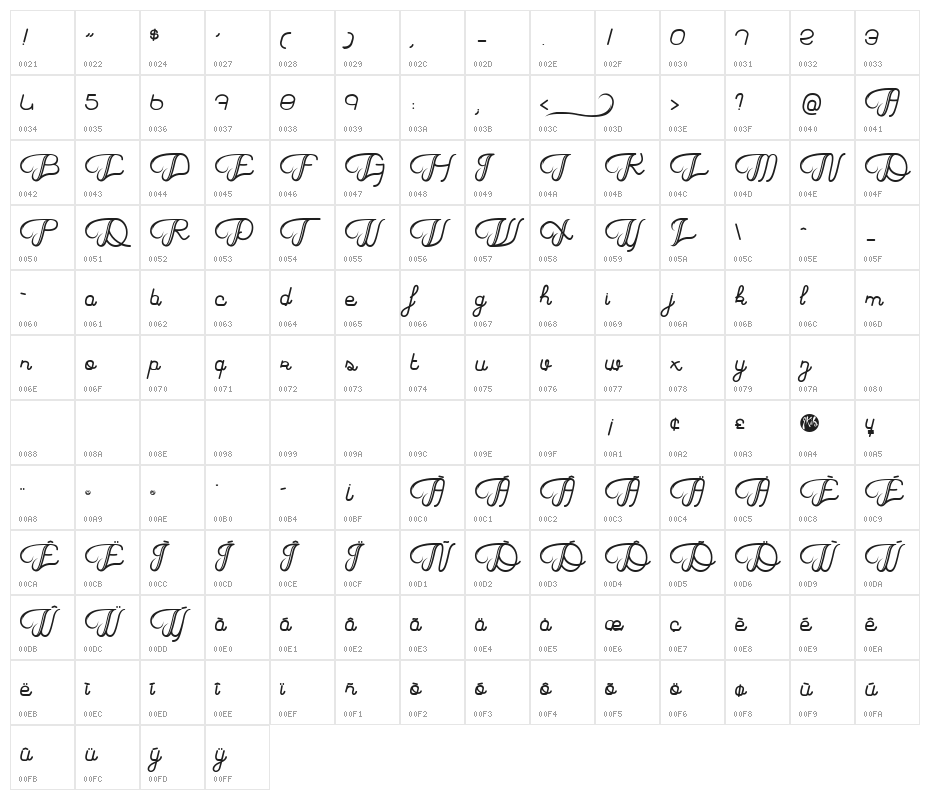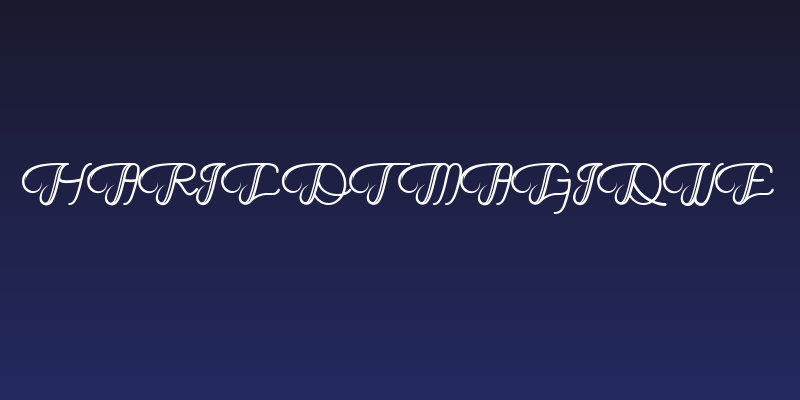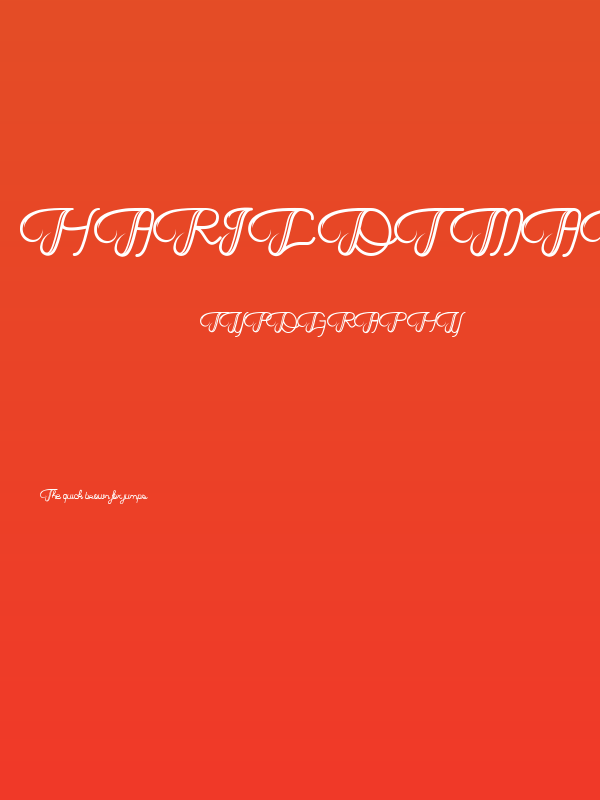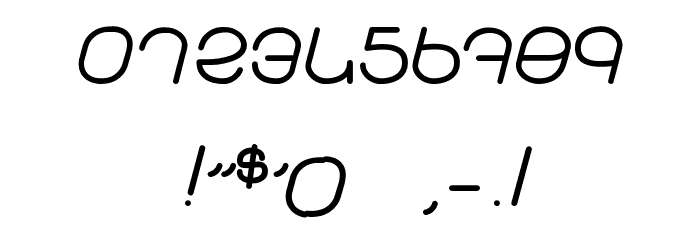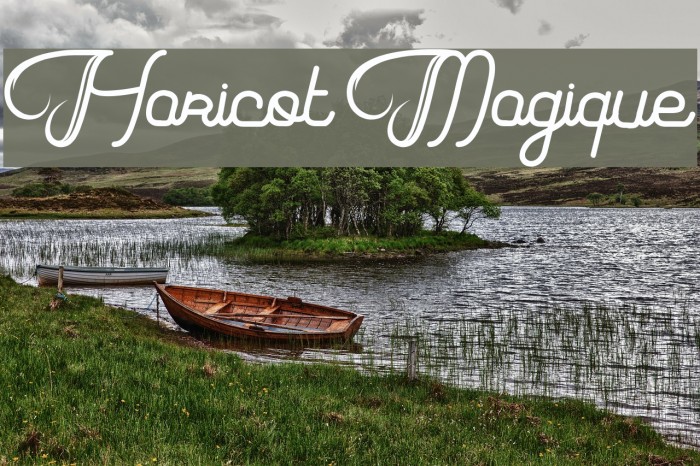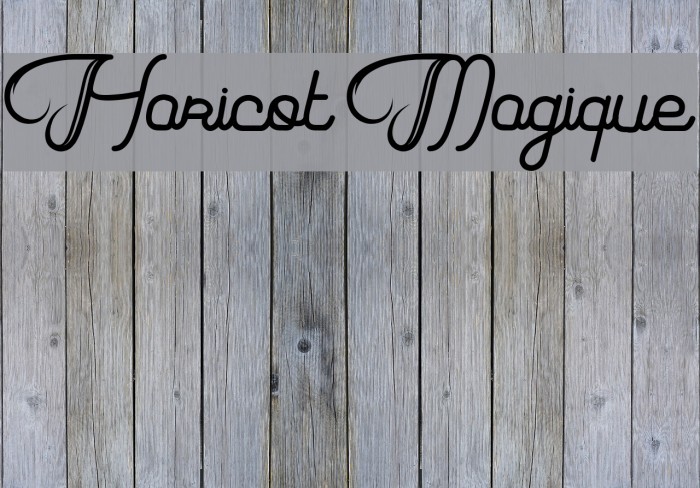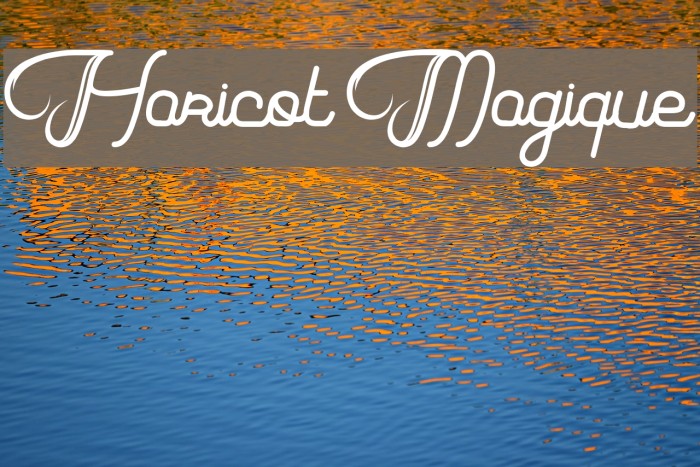
Haricot Magique Font
Haricot Magique Description
This font features a playful and whimsical script style, characterized by its fluid, interconnected letterforms. The uppercase letters exhibit elegant loops and swirls, giving them a decorative flair. The lowercase letters maintain a consistent flow, enhancing readability while retaining a sense of charm. The numerals are rounded and maintain the playful aesthetic, while the special characters integrate seamlessly with the overall design. This font's unique style makes it suitable for creative and informal applications.
| Proposed Projects | Ideal for greeting cards, invitations, playful branding, and creative projects requiring a whimsical touch. |